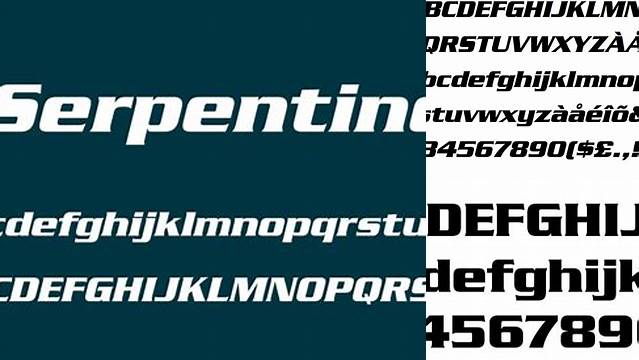
Hey guys! Ever stumbled upon a font that just screams elegance and power at the same time? That's Serpentine Bold Oblique for you! This font family is a real gem for designers and creatives looking to add a touch of sophistication and dynamism to their projects. Whether you're working on a sleek logo, a captivating headline, or even a stylish poster, Serpentine Bold Oblique can be your secret weapon. But, finding a free download can sometimes feel like searching for a needle in a haystack. Don't worry, we've got you covered! In this guide, we'll dive deep into everything Serpentine Bold Oblique, from its unique characteristics to where you can snag it for your next project. So, buckle up and let's get started!
What Makes Serpentine Bold Oblique So Special?
Before we jump into the download details, let's quickly chat about what makes this font so darn appealing. Serpentine Bold Oblique boasts a modern, geometric design with a distinctive italic slant that adds a sense of movement and energy. The bold weight gives it a strong presence, making it perfect for grabbing attention. It's like the James Bond of fonts – smooth, sophisticated, and always ready for action!
1. Serpentine Bold Oblique: Font Family Overview
Alright, let's kick things off by understanding the Serpentine Bold Oblique font family as a whole. What exactly does this family offer? Well, typically, when we talk about a font family, we're referring to a collection of fonts that share a similar design but come in different styles and weights. This gives you, the designer, a ton of flexibility to play with! Think of it like having a complete set of tools in your creative arsenal. You might have the classic Serpentine, the bold version, the italicized version, and, of course, our star: the Serpentine Bold Oblique. Each variant has its own unique vibe, but they all work together harmoniously.
So, why is this important? Because having the full family means you can maintain consistency throughout your designs while still adding visual interest. You can use the regular Serpentine for body text, the bold for headings, and the oblique to emphasize certain words or phrases. It’s all about creating a hierarchy and making your design pop! When you're on the hunt for a download, be sure to check if you're getting the entire family or just the one style you need. Sometimes, a 'free download' might only include a limited version. More on that later!
2. Distinguishing Features of Serpentine Font
Let's get down to the nitty-gritty: what exactly sets the Serpentine font apart from the crowd? It's not just another sans-serif, guys; this font has a personality! Think about its sharp, clean lines and its almost futuristic feel. It's got a geometric vibe, meaning it's built on simple shapes like circles and squares, giving it a very modern and structured look. This makes it super versatile for all sorts of projects, from tech startups to high-fashion brands.
But the magic of Serpentine lies in its versatility. It can be bold and assertive, or sleek and understated, depending on how you use it. The secret is in the details: the slight curve of a letter here, the sharp angle there. These subtle nuances give Serpentine a unique character that other fonts just can't match. And that's why it's so popular! Designers love using it to add a touch of sophistication and a hint of forward-thinking to their work. It's the kind of font that whispers, "We're innovative, we're stylish, and we're here to stay."
3. The Bold Weight Advantage
Now, let's zoom in on the 'Bold' part of Serpentine Bold Oblique. Why is bold weight so important? Well, in the world of design, bold fonts are the headline hitters, the attention-grabbers, the ones that shout, "Look at me!" They're thicker, heavier versions of the regular font, and they’re designed to stand out. Think about it: when you're scanning a poster or a website, what catches your eye first? Usually, it's the big, bold text. That's the power of bold weight in action.
Bold fonts are crucial for creating visual hierarchy. They help you guide the viewer's eye through your design, highlighting the most important information. Use them for headings, subheadings, or to emphasize key words and phrases. In the case of Serpentine Bold Oblique, the bold weight enhances its already strong personality. It adds a sense of confidence and authority, making it perfect for projects that need to make a statement. Whether it's a company logo, a product name, or a call to action, using the bold weight ensures that your message gets noticed. But remember, like any powerful tool, bold fonts should be used strategically. Too much bold can be overwhelming, so balance is key! Use it wisely, and you'll see your designs instantly become more impactful.
4. Oblique Style Explained
Okay, so we've covered the 'Bold' part, but what about the 'Oblique'? If you're not a font fanatic, you might be scratching your head right now. Simply put, oblique is the fancy term for italic in the font world, but with a subtle difference. While true italics are completely redesigned versions of the regular font, obliques are usually just slanted versions. Think of it like leaning to the right – that's essentially what an oblique style does to your letters!
So, why use an oblique style at all? Well, just like italics, obliques add emphasis and a touch of elegance to your text. They create a visual contrast with the regular font, making them perfect for highlighting certain words, phrases, or even entire paragraphs. They also add a sense of movement and energy, which can be especially useful in designs that want to convey a dynamic feel. In the case of Serpentine Bold Oblique, the oblique style enhances its modern, almost futuristic vibe. The slant gives it a sense of speed and forward motion, making it a great choice for projects that want to feel cutting-edge. Think tech companies, sports brands, or anything that wants to project a sense of innovation. But remember, like any stylistic choice, subtlety is key. Use the oblique sparingly to make it truly effective. Overdo it, and you risk losing the impact.